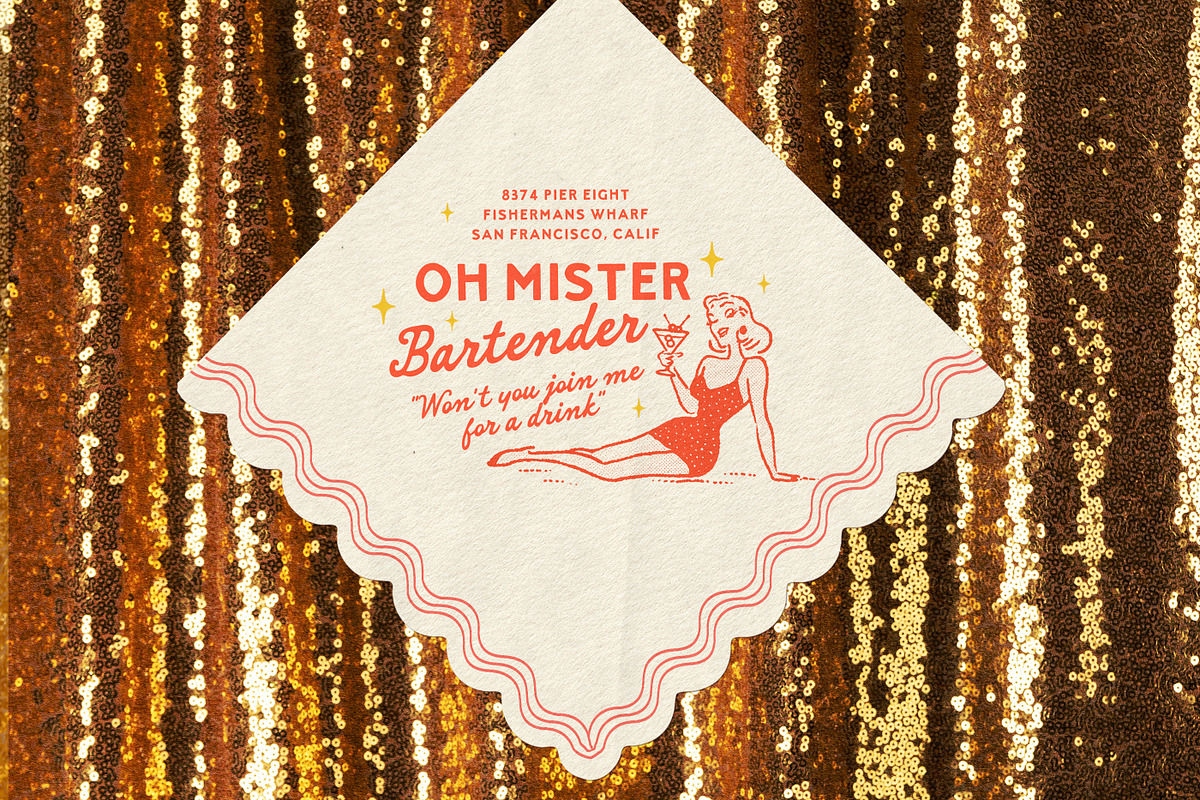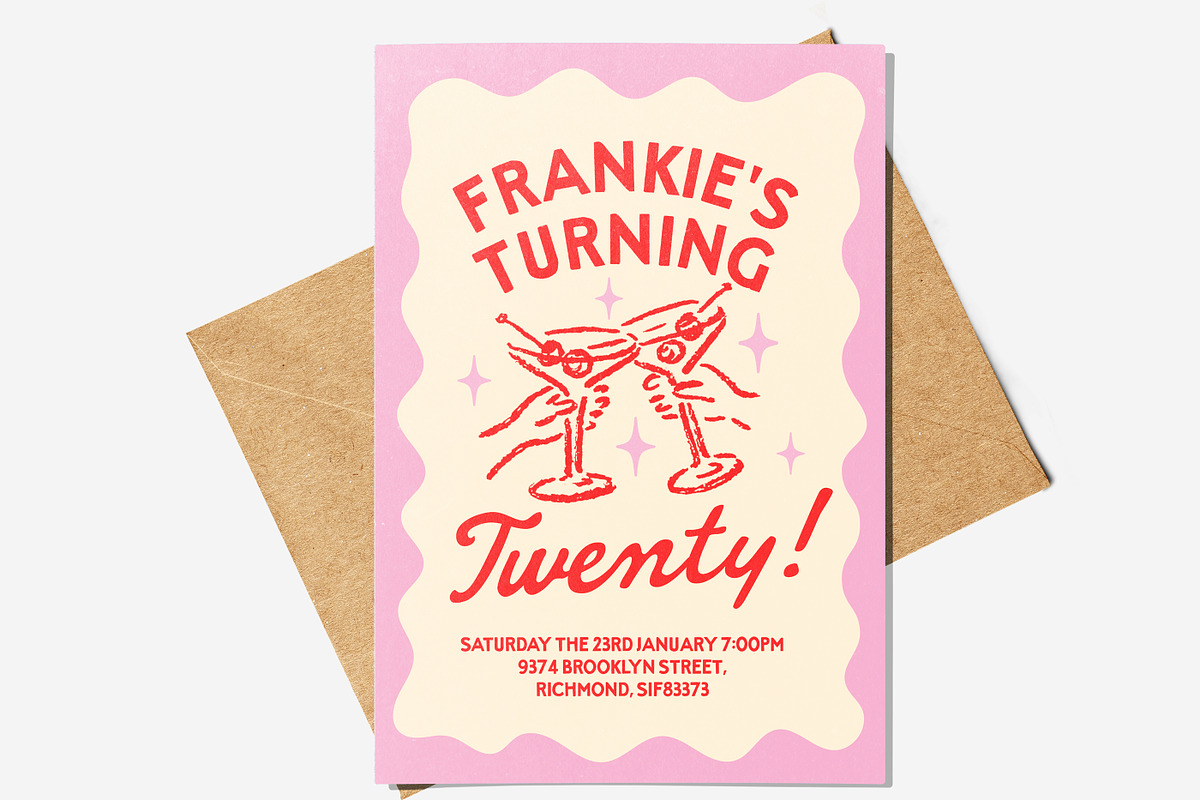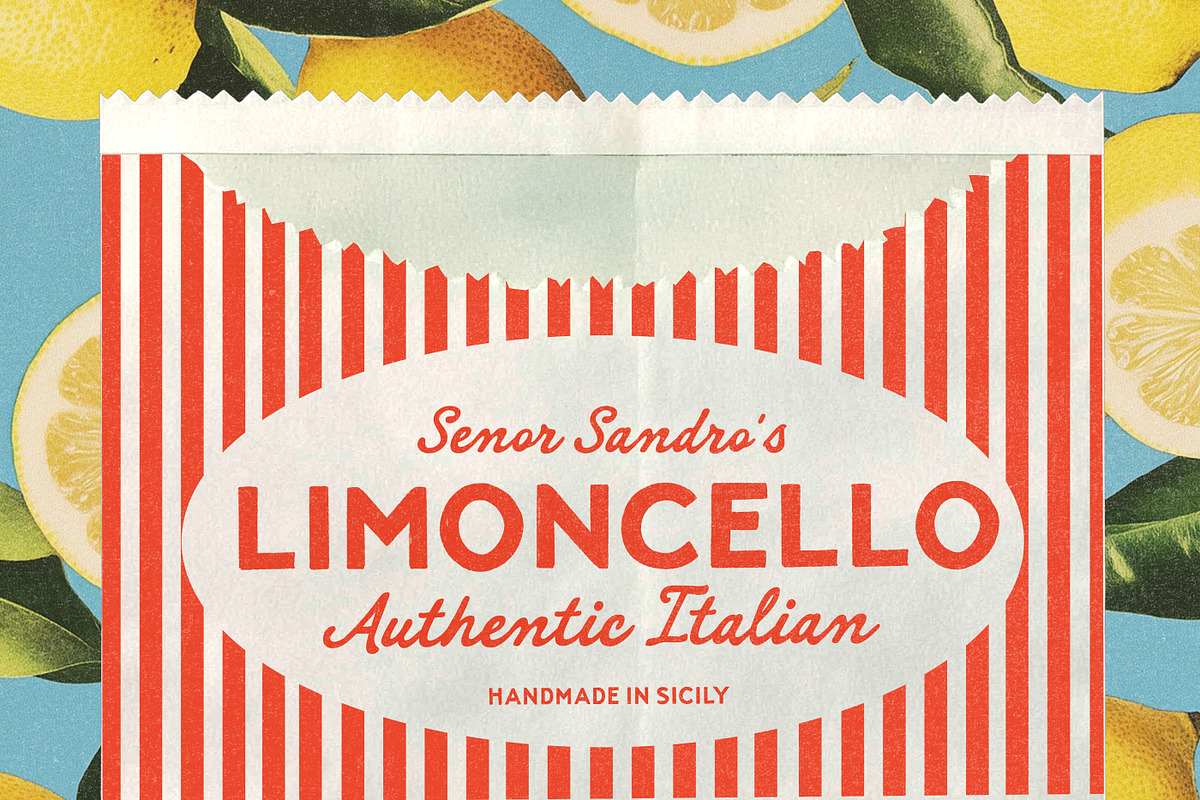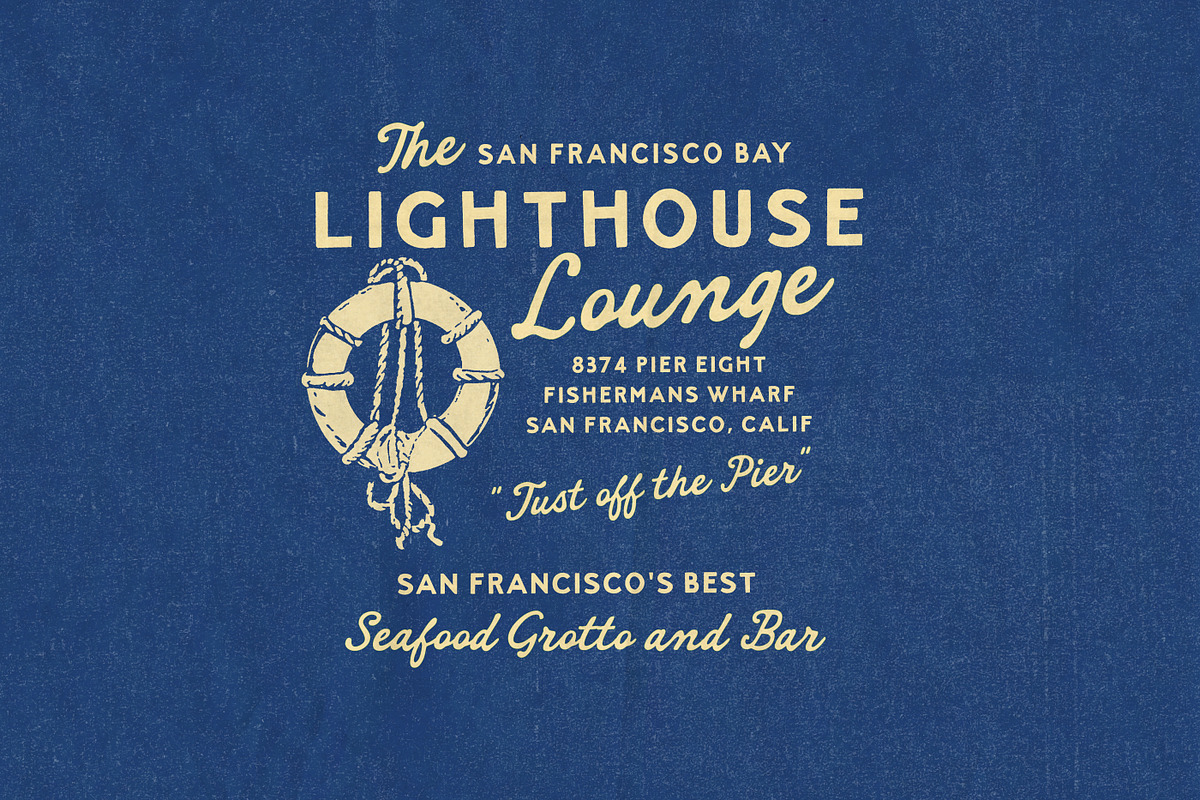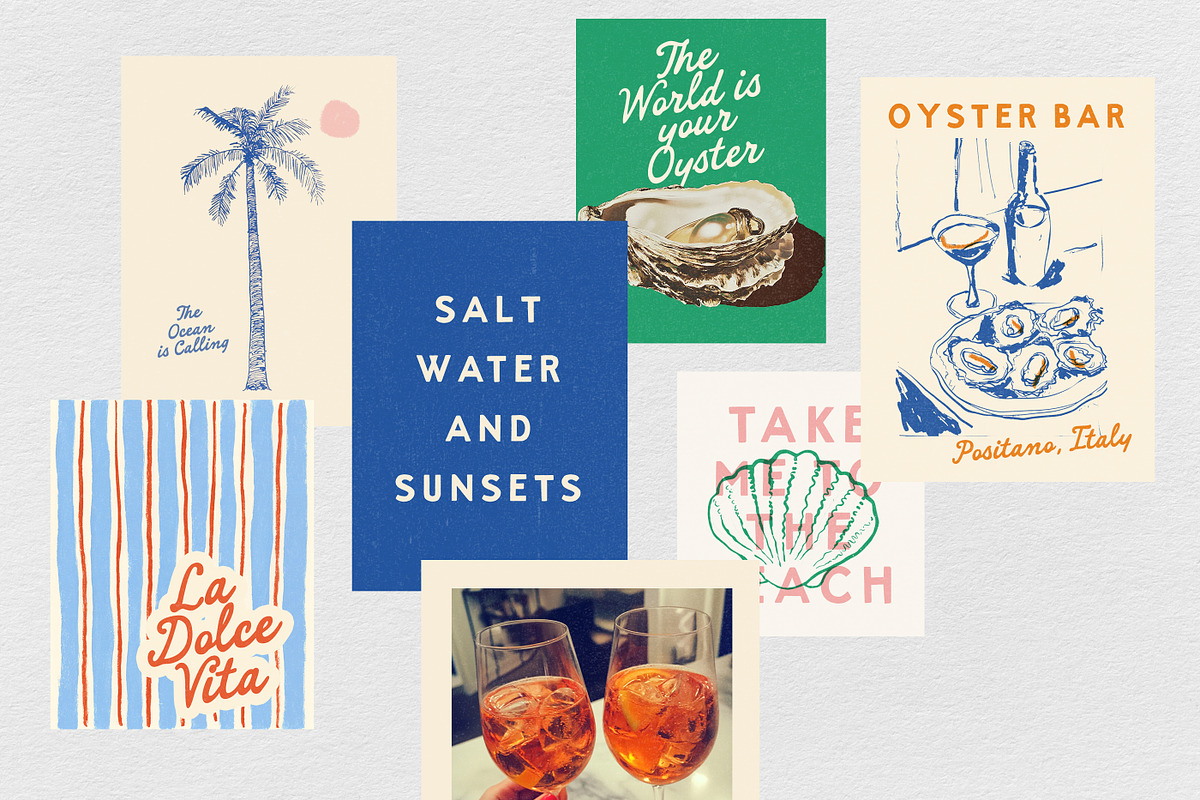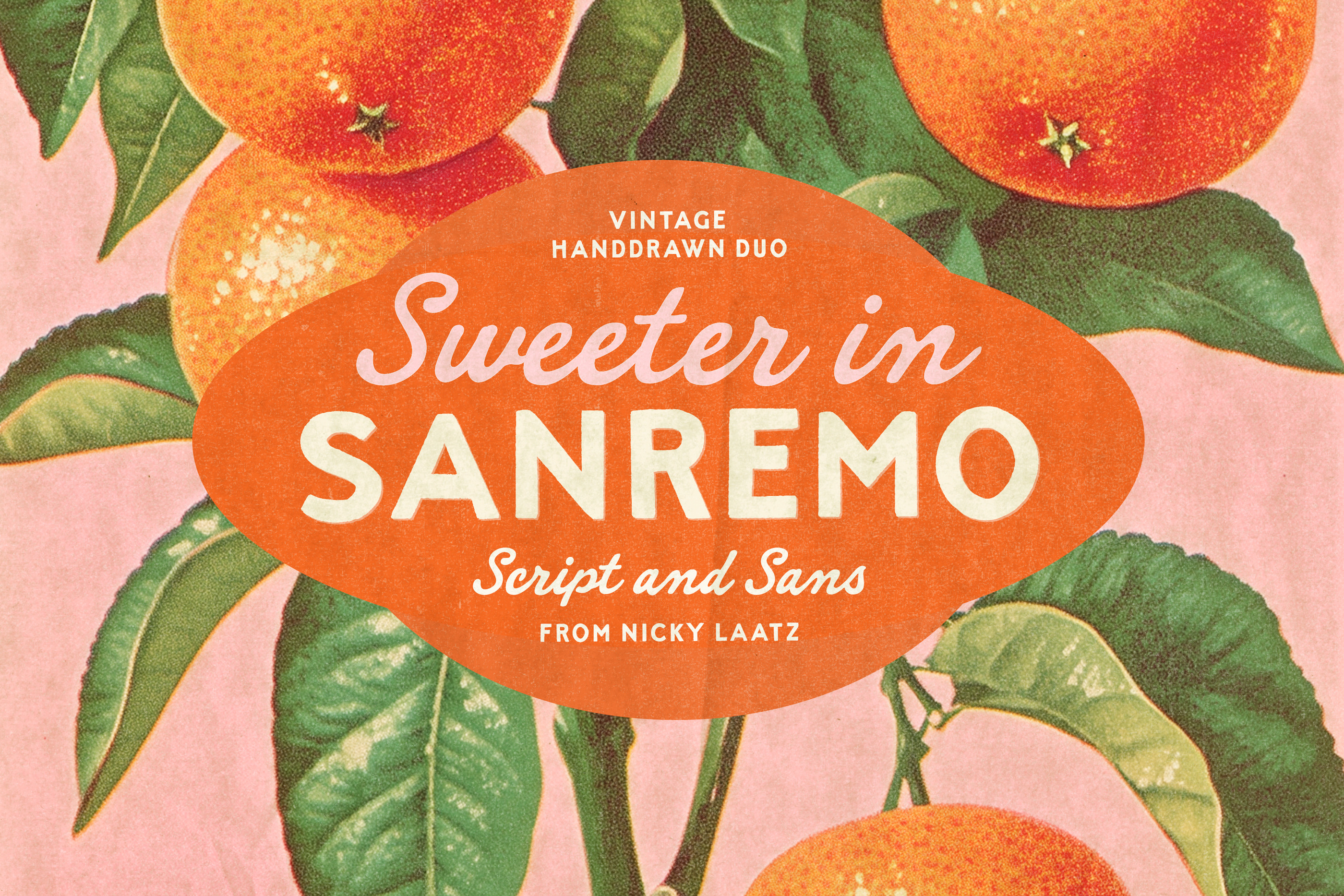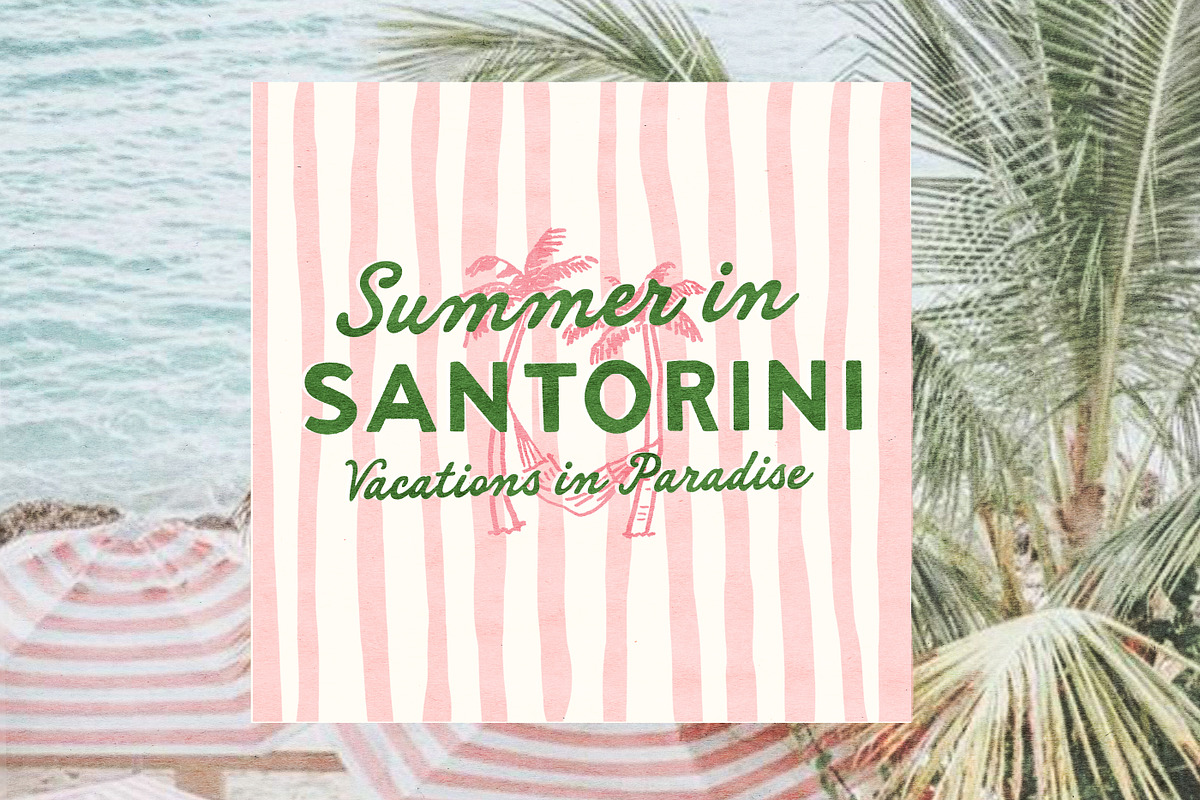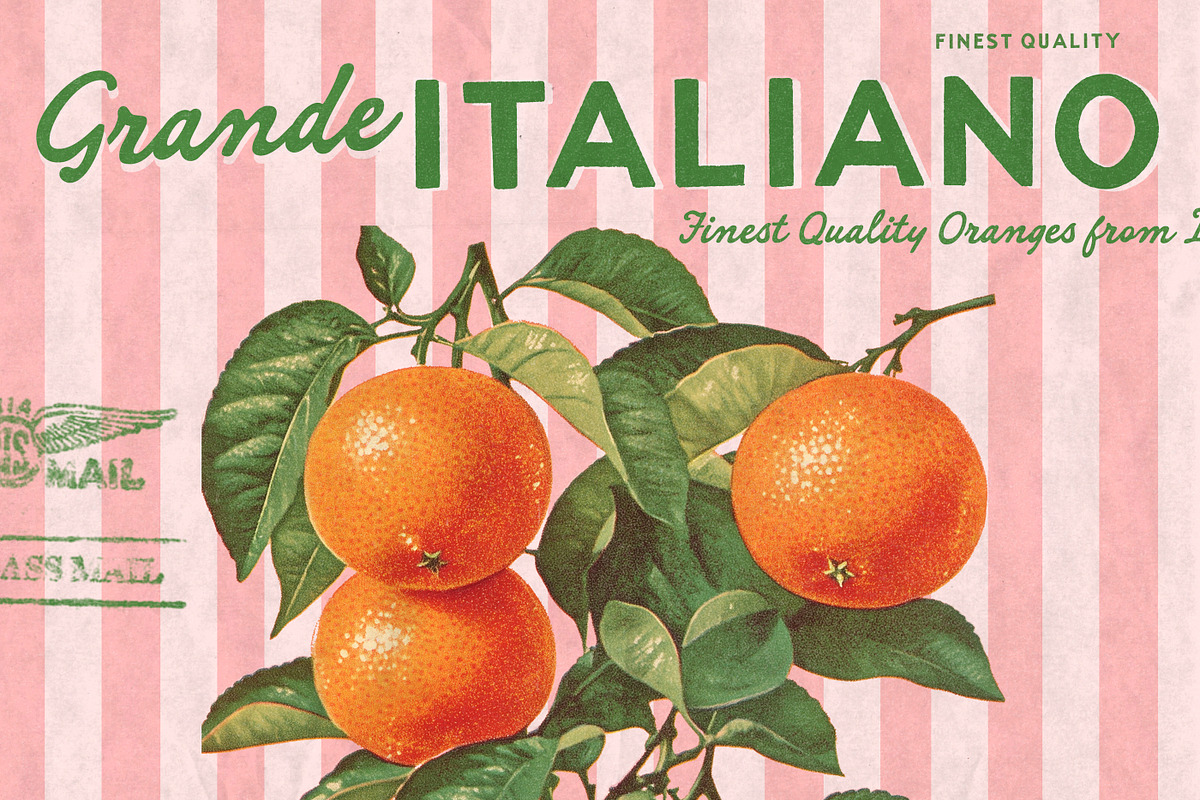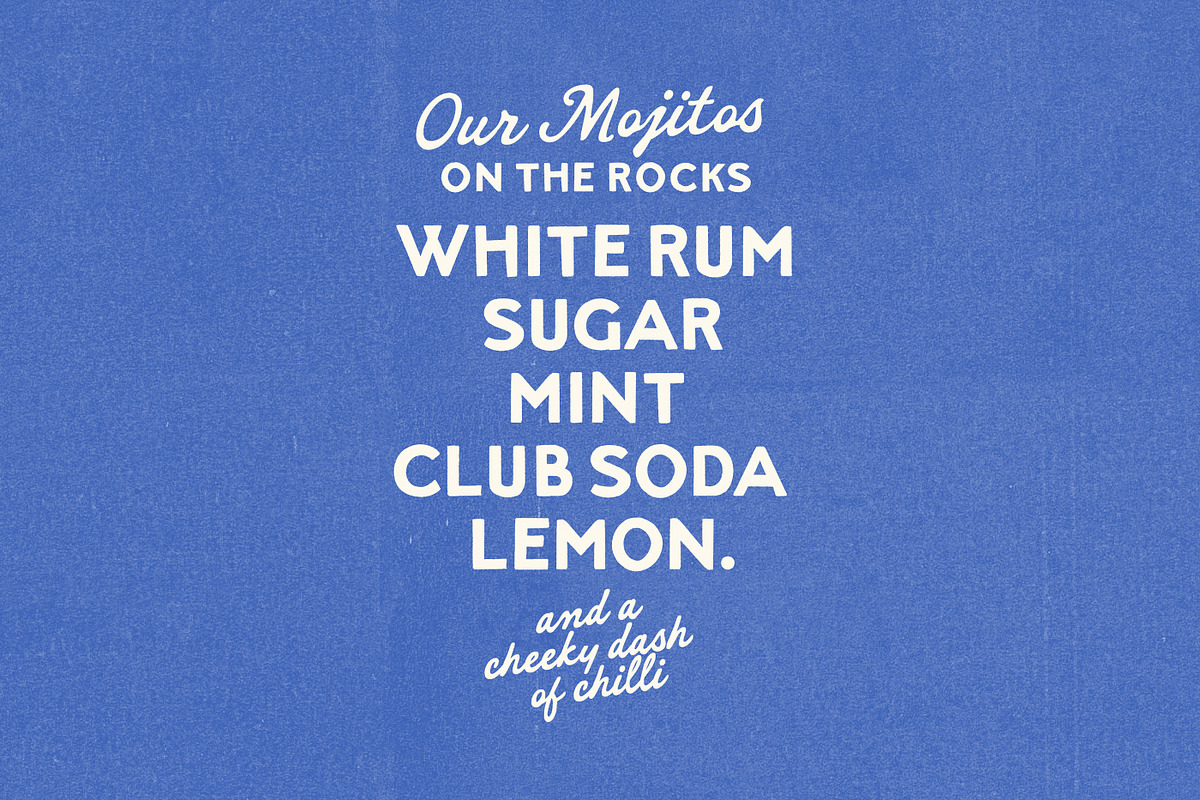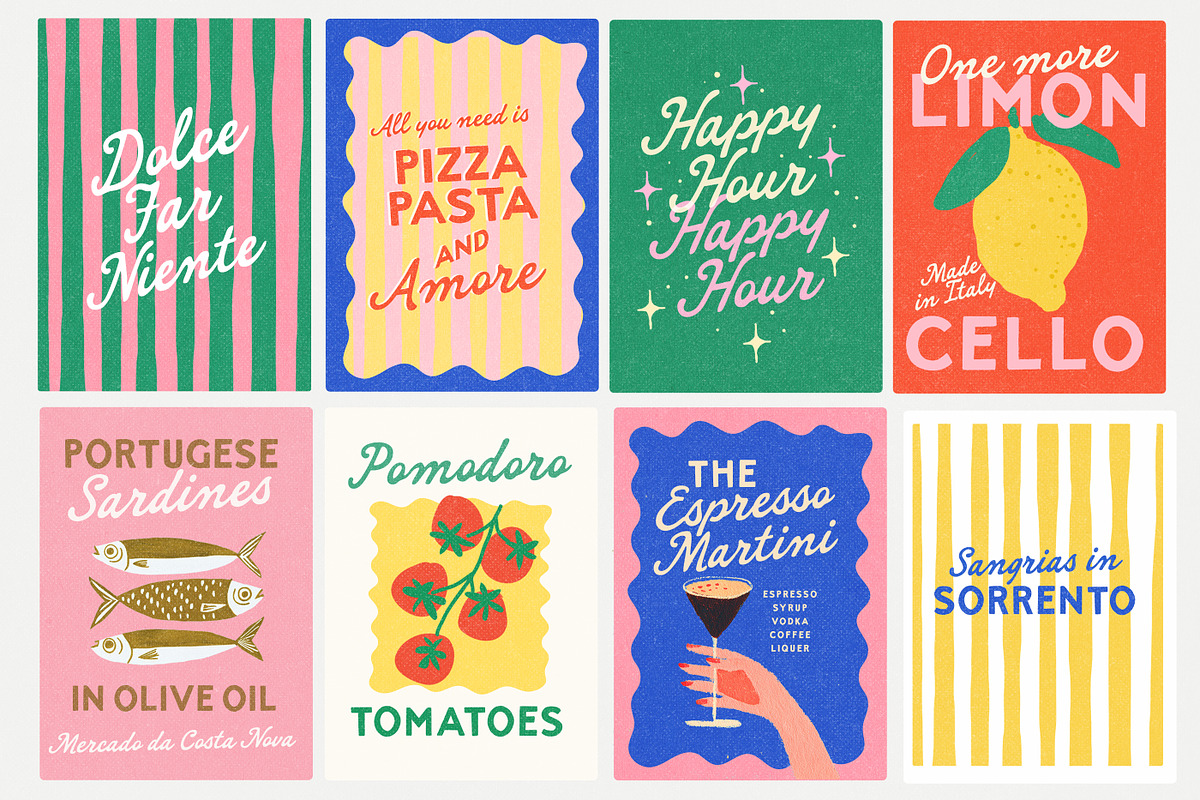
Sanremo Vintage Font Duo
In the world of typography, a great font duo is like a great cocktail — balanced, refreshing, and full of personality. Enter the latest bold and breezy font duo that's intended to capture the essence of fun, flavour, and flair!
Say hello to Sanremo! The duo was inspired by vintage imperfect handprinted signage and old matchbook covers from the 40s and 50s - bringing in a modernity with a vintage charm.
Sanremo Duo consists of two font styles : a confidently bold, hand-drawn all-caps sans serif that commands attention, and a smooth, handwritten script that adds a cheeky wink of warmth. Whether it’s listing cocktail ingredients or adding a playful tagline, this dynamic duo knows how to make words pop — and fizz!
This font combo doesn’t just communicate — it connects. It's made for brands that want to be both clear and clever, serious about style but never afraid to have a little fun. Whether you're designing for a hip café, a vibrant event flyer, or an artisanal product label, this font duo brings the perfect mix of structure and spontaneity.
In a world that moves fast and scrolls even faster, typography needs to stand out. This font duo? It’s not just standing out — it’s dancing, it’s laughing, it’s shaking up the design world like a mojito on the rocks.
Both styles have a smooth version and a very slightly rough version - just to add a touch of grit where you need it :)
The script has a couple of slanted versions as options, and a slightly lighter varient for on darker colours.
The sans has some height varientsto choose from also.